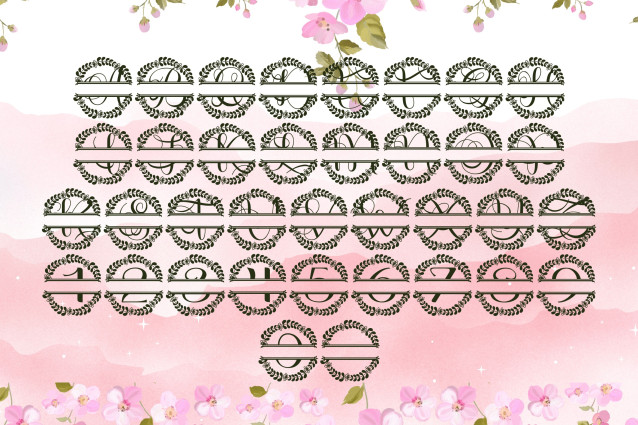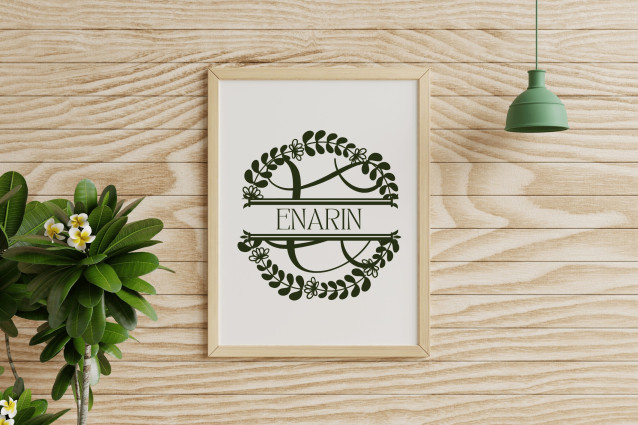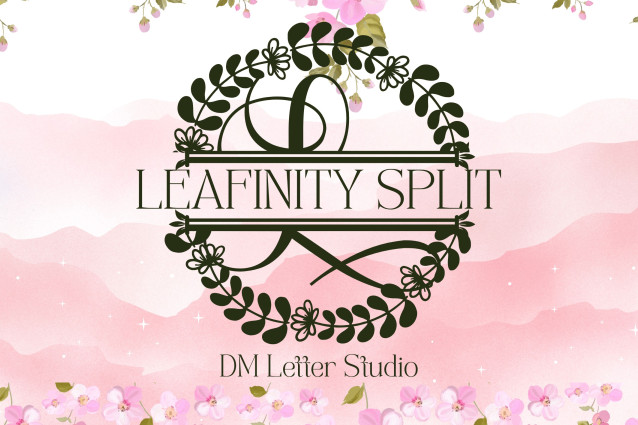
Leafinity Split Font
Leafinity Split Monogram is a graceful serif font designed with a horizontal split, perfect for personalized designs. Each uppercase character features refined leaf and vine embellishments paired with a clean central gap—ideal for inserting names, initials, or words. Perfect for weddings, gifts, and sophisticated crafts.